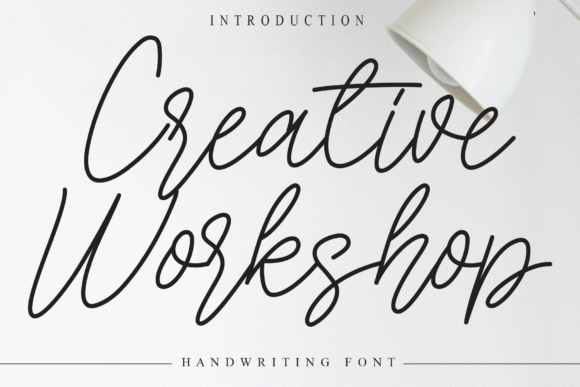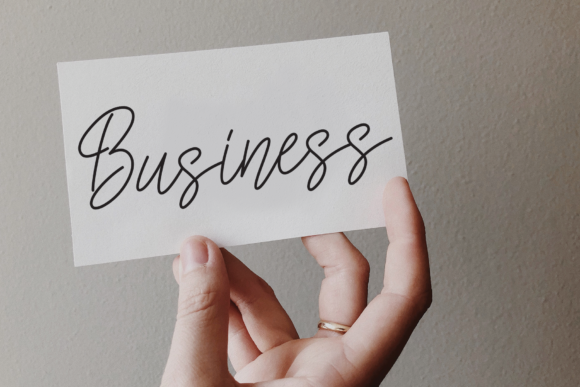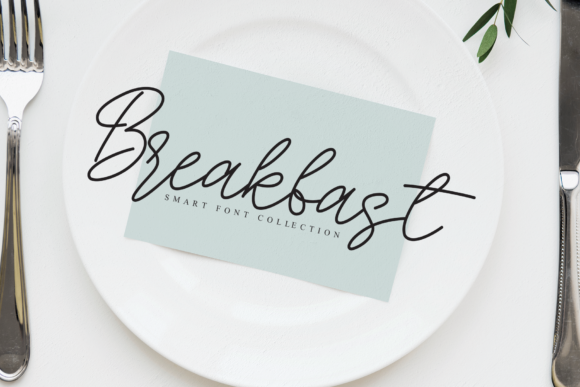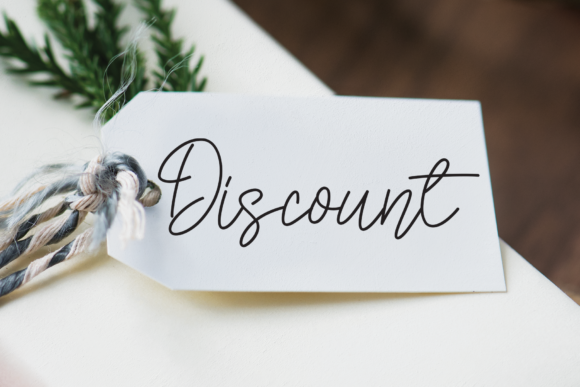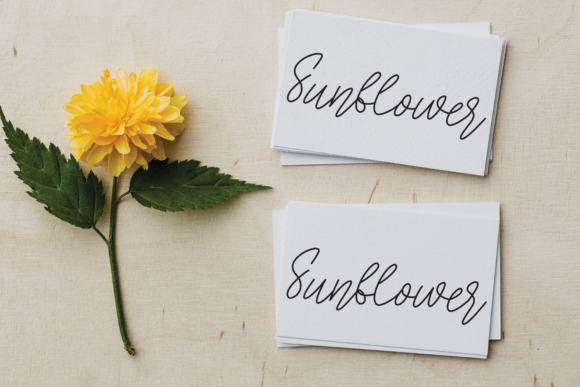
Creative Workshop Font
About Creative Workshop Font
Creative Workshop is a thin and flowing script font that breathes life into your most creative ideas. With its elegant and graceful style, this font adds a touch of sophistication and charm to your designs, making them come alive with creativity.
The flowing nature of Creative Workshop brings a sense of movement and fluidity to your typographic compositions. Its thin and delicate strokes create a dynamic and expressive aesthetic that captures attention. Whether you’re working on branding, packaging, invitations, or any other creative project, Creative Workshop font enhances the overall visual appeal with its flowing and captivating demeanor.
Adding Creative Workshop to your most creative ideas allows you to unlock their full potential. This font elevates the impact of your designs by infusing them with elegance and creativity. Its thin and flowing style adds a touch of sophistication, making your creations visually appealing and memorable.
Creative Workshop is perfect for a variety of creative projects, including logos, posters, social media graphics, and more. Its versatile nature allows it to adapt to different design contexts, enhancing the overall aesthetic with its graceful and dynamic appearance.
Incorporating Creative Workshop into your designs sparks inspiration and breathes life into your creative ideas. Its thin and flowing script font brings a sense of elegance and charm, making your designs come alive with creativity.
In summary, Creative Workshop is a thin and flowing script font that adds sophistication and creativity to your designs. Its elegant and graceful style enhances the impact of your most creative ideas, making them visually captivating and alive. Embrace the beauty of Creative Workshop font and watch as it brings your designs to life with its flowing and expressive presence.